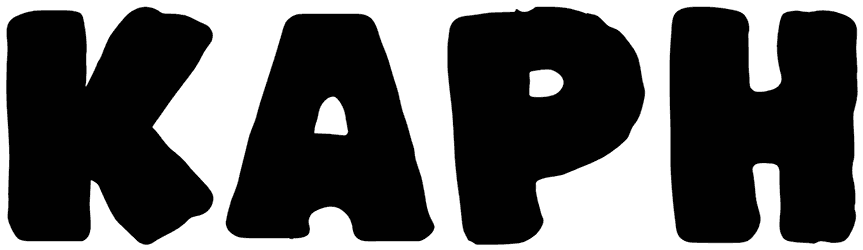
Kaph Font
Kaph is a lovely, fancy, cartoon font with a distinct character style that stands out from the crowd. Although it lacks lowercase letters, its different styles provide a variety of enhancements to your project’s efficien…
Kaph is a lovely, fancy, cartoon font with a distinct character style that stands out from the crowd. Although it lacks lowercase letters, its different styles provide a variety of enhancements to your project’s efficiency alongside their amusing and playful appearance. This font is fantastic for creating logos, posters, and flyers. Give it a shot and spread some joy.